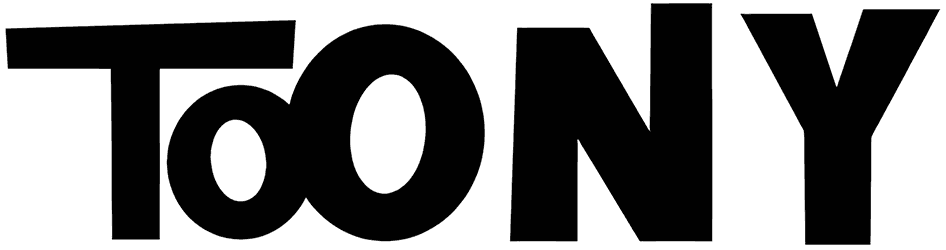
The Minion Font
Have fun decorating your typography design with the bold round characters The Minion offers. It contains none of the lowercase versions of letters and yet accomplishes adding a cute sort of playfulness to your text through its only caps letterforms.
Use this cartoon font to create some energetic digital banners, or design a fun title for your cheerful books, movies, party ads, etc.